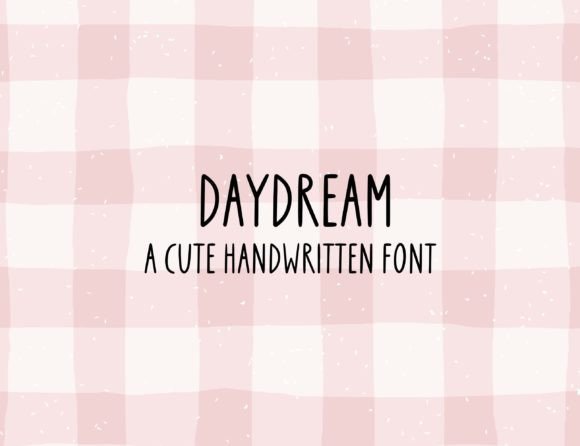
The Power of Imagination: Unleashing Creativity with Daydream Font
Have you ever found yourself lost in thought, imagining a world where anything is possible? As creatives, we’ve all been there – daydreaming about our next project, envisioning the perfect design, and bringing our ideas to life. And that’s exactly what the Daydream Font is all about – sparking imagination and inspiring creativity.
This wonderful duo font combines the elegance of a sans serif font with the charm of a handwritten one, creating a unique and versatile design experience. With its well-balanced characters and wide range of applications, the Daydream Font is the perfect companion for designers looking to breathe life into their most inventive ideas.
- Unique Characteristics: Daydream Font features a unique blend of modern and vintage elements, with intricate details and subtle textures, giving it a distinctive look.
Daydream Font Review
Overall, I think the Daydream Font has a lot of potential, but it’s not without its limitations. Here are my honest thoughts on this font.
- Casual, whimsical feel: The Daydream Font has a playful, carefree vibe that’s perfect for creative projects, children’s books, or any design that needs a touch of magic.
- Unique letterforms: The font’s irregular shapes and lines give it a distinctive look that sets it apart from more traditional fonts.
- Good legibility: Despite its quirky design, the font is still easy to read, even at smaller sizes.
- Overuse potential: The font’s whimsical feel can quickly become overpowering if used too much, so it’s essential to use it sparingly and balance it with other fonts.
- Limited scalability: While the font looks great at most sizes, it can become too distorted or loose at very large or very small sizes.
Overall, I think the Daydream Font is a great addition to any designer’s toolkit, but it’s essential to use it thoughtfully and in the right context. With a little creativity and restraint, this font can add a touch of magic to your designs.
The Daydream font is ideal for creative and artistic projects, such as:
– Children’s book illustrations
– Magazine and newspaper headlines
For the most effective use of the Daydream font, use it in bold and playful ways to add a touch of whimsy and creativity to your designs.